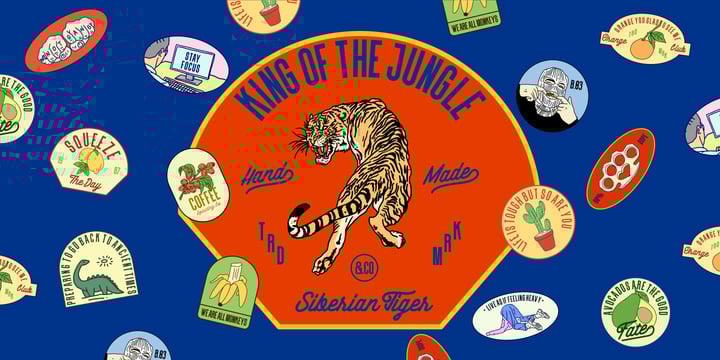
Hailen Font Duo
Die Schriftfamilie Hailen Font Duo wurde von Wisnu Cipto Wibowo entworfen und von Fateh.Lab veröffentlicht. Hailen Font Duo enthält 3 Stile und Familienpaketoptionen. Mehr über diese Familie
Hailen is a font that is very suitable to be combined with current fashion themes and a number of illustrations to give them a more beautiful look. These two beautiful fonts will be perfect to combine in your design and are suitable for t-shirts, prints, magazine or book cover, business cards, material branding, poster quotes, Clothing, wedding invitations, blog posts, social media, digital letters, and many more!